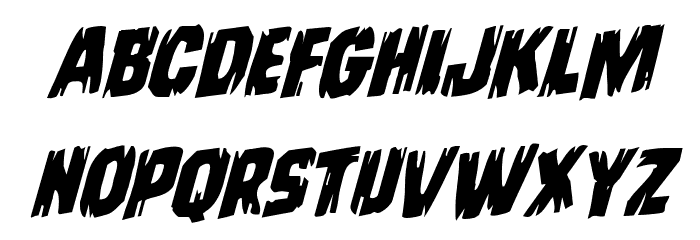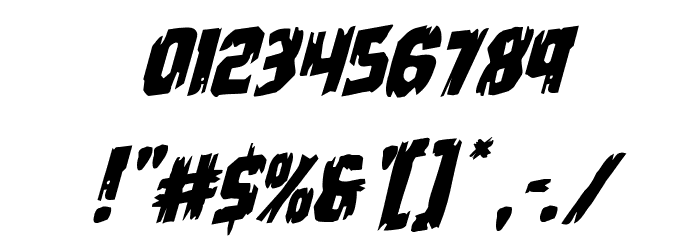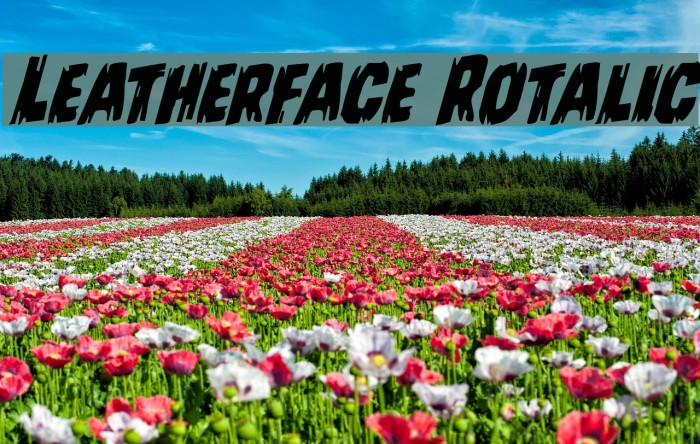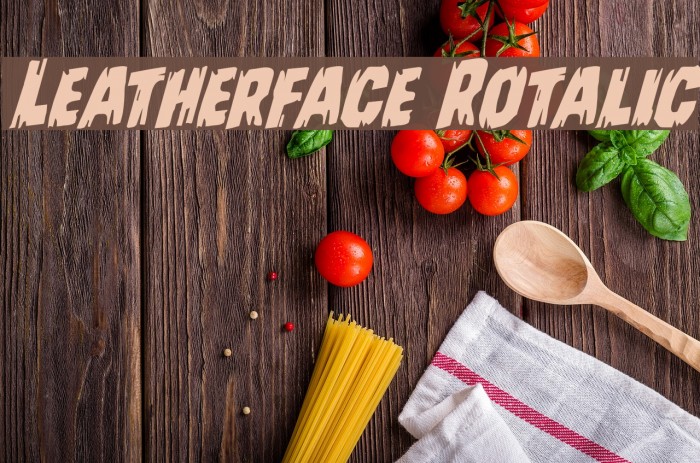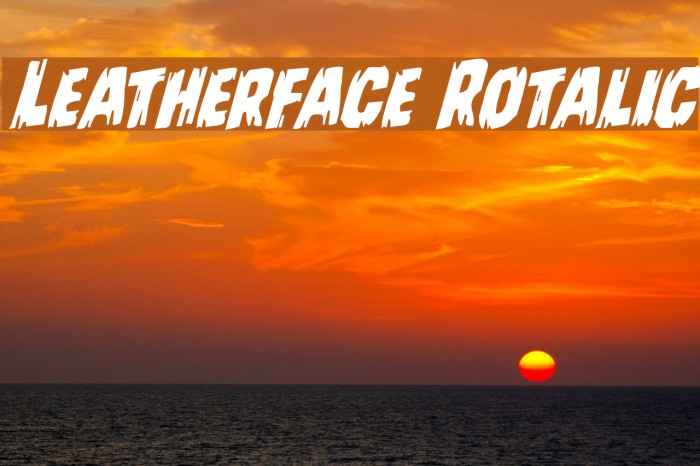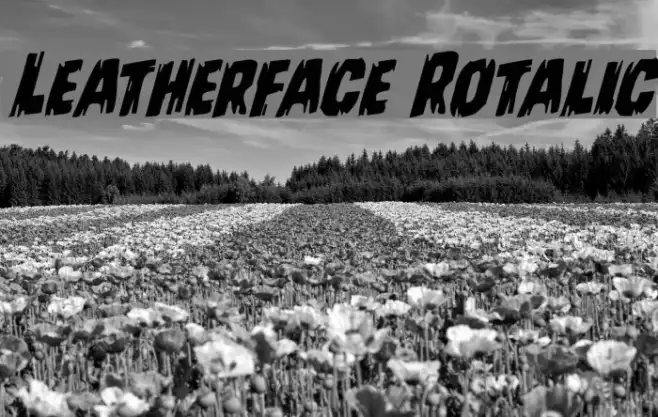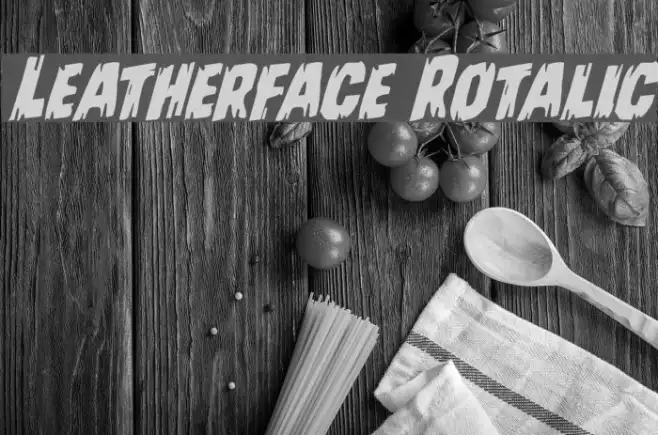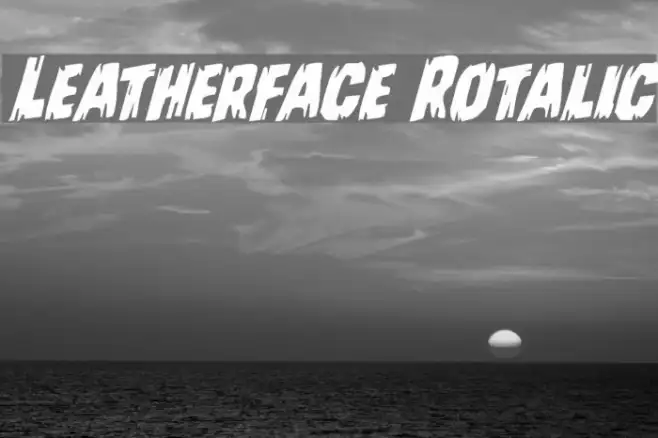
Leatherface Rotalic Font
This font features a bold and aggressive style with jagged edges and a distressed appearance, giving it a raw and dynamic look. The characters are slanted, adding a sense of motion and urgency. The uppercase and lowercase letters maintain a consistent style, with sharp angles and irregular strokes that create a sense of chaos and intensity. The numbers and special characters follow the same design principles, ensuring a cohesive appearance across all glyphs. This font is ideal for projects that require a strong, impactful visual presence.
A bold, distressed font with jagged edges and a dynamic, slanted style.
- Proposed Projects: Ideal for horror-themed posters, edgy branding, album covers, and video game titles.